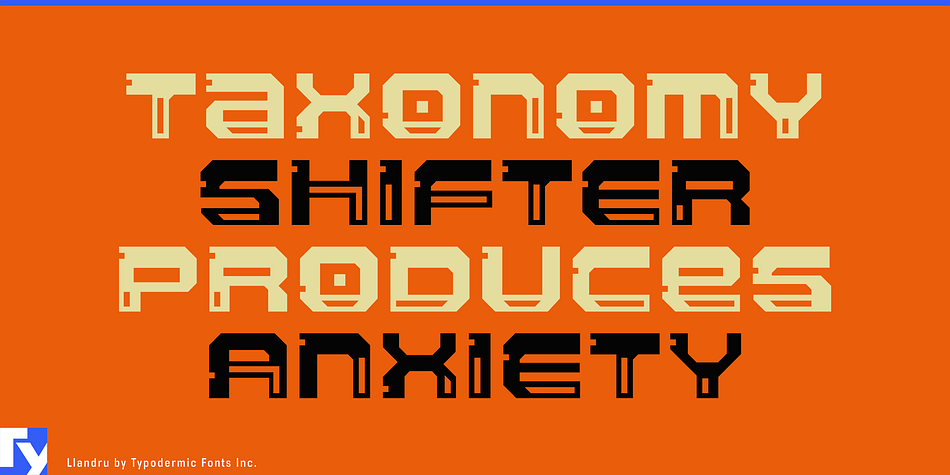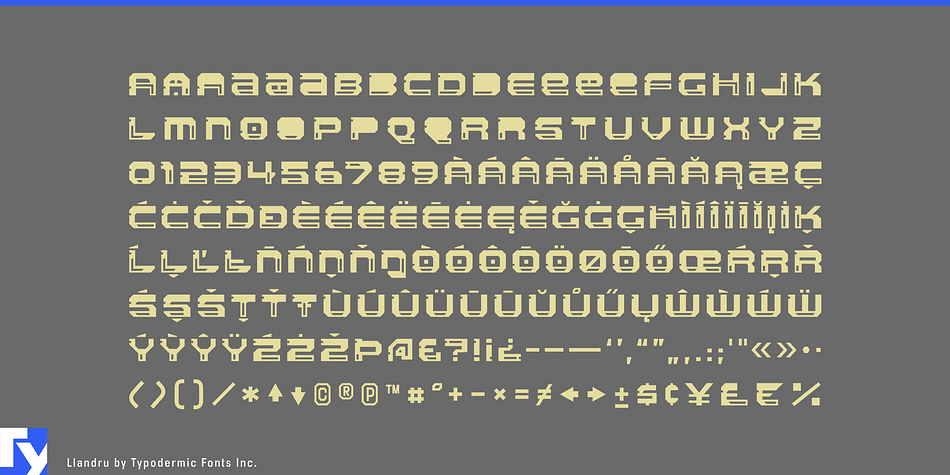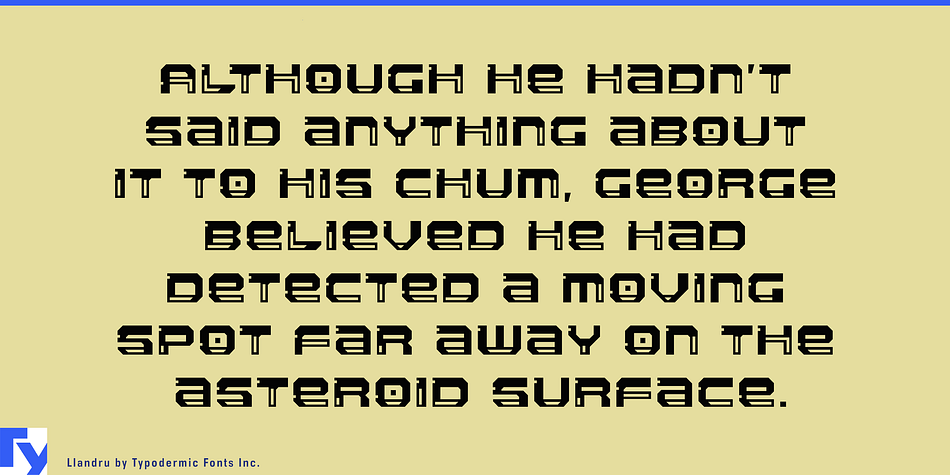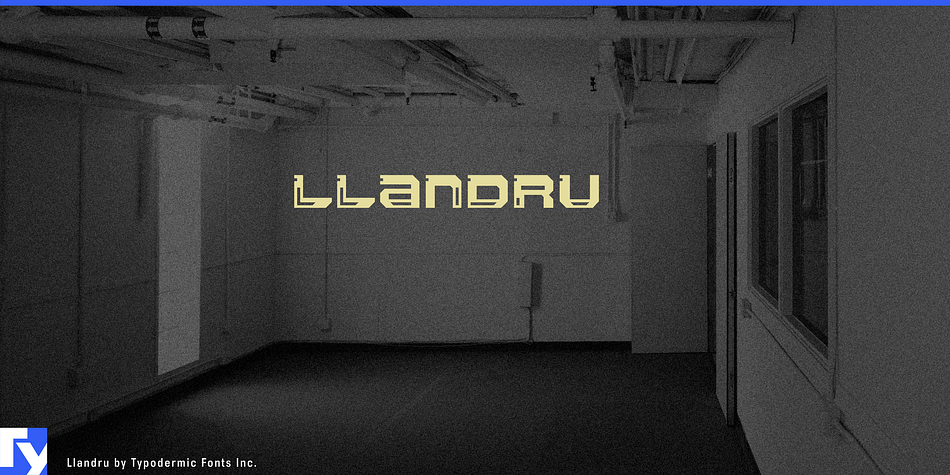
Llandru is a display font published by Typodermic Fonts Inc.
Llandru. The name of a 21st century display typeface consisting of mechanical shapes inspired by floppy disks and digital memory cards used to store data in 20 and 21st century. It is an all caps font with some alternate letters.